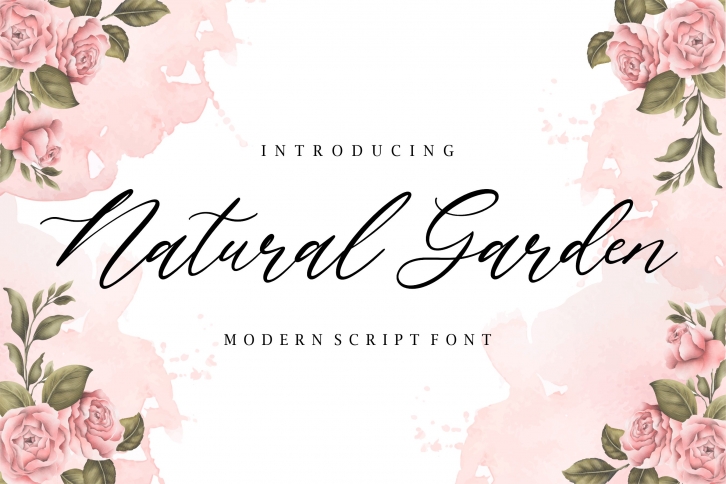
Natural Garden Modern Script is a great font that was designed by Balpirick. Imagine the amount of combinations you can create using this font! The archive is 18.9 MB and it was released on November 2, 2020. Natural Garden Modern Script looks beautiful on wedding invitations, greeting cards, logos, posters, labels, t-shirt designs, logos, business cards and is perfect for use in ink or watercolor works, fashion, magazines, packaging and food menus, children's books and more!